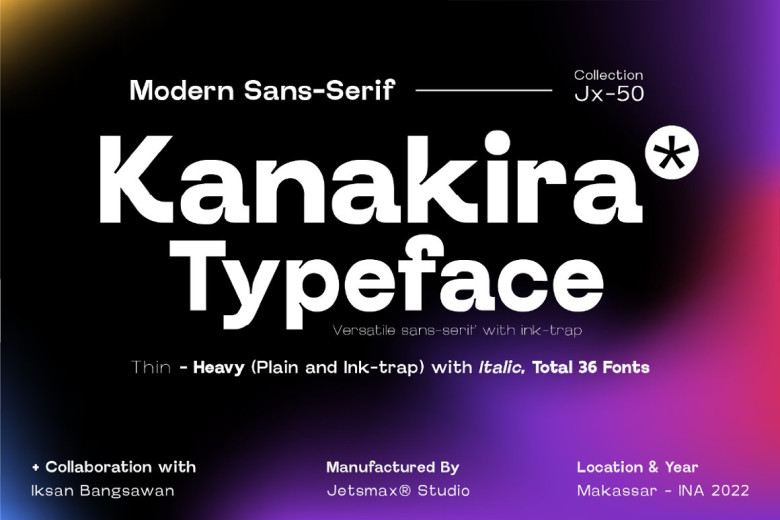
Kanakira Font
Kanakira is a modern sans-serif typeface that brings a geometric slant to the neo-grotesque model. Available in three styles, Kanakira is ready for any typefaces project. The typeface can be a great choice for branding projects, marketing materials, banners, posters, corporate identities and editorial design.
Kanakira Sans Serif Font